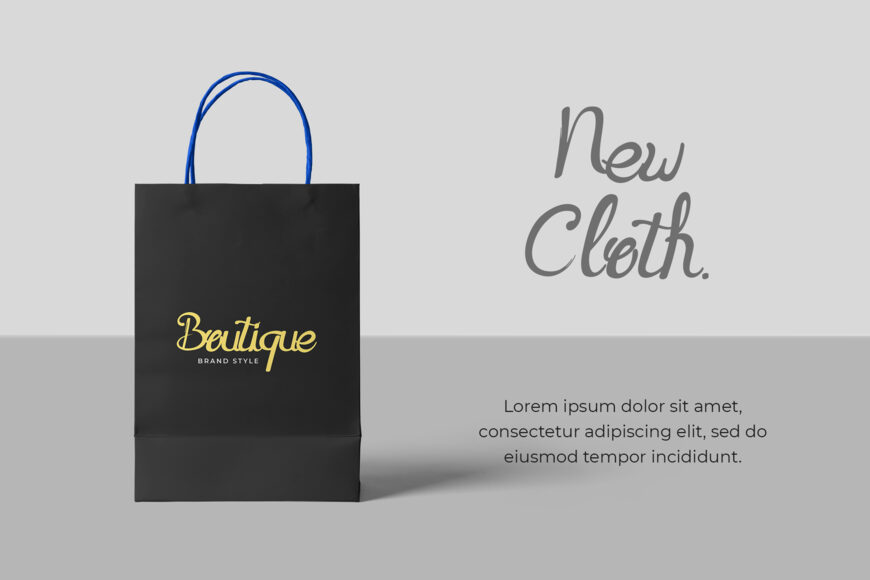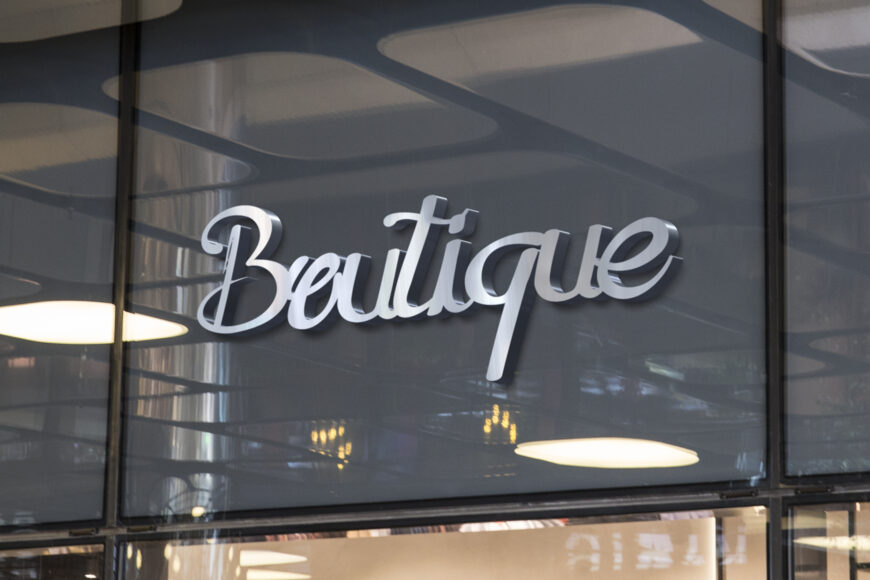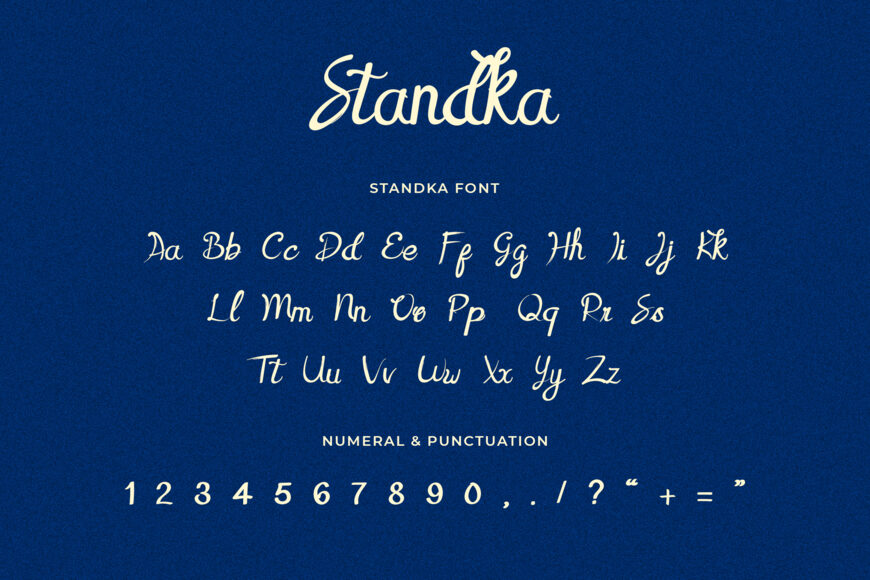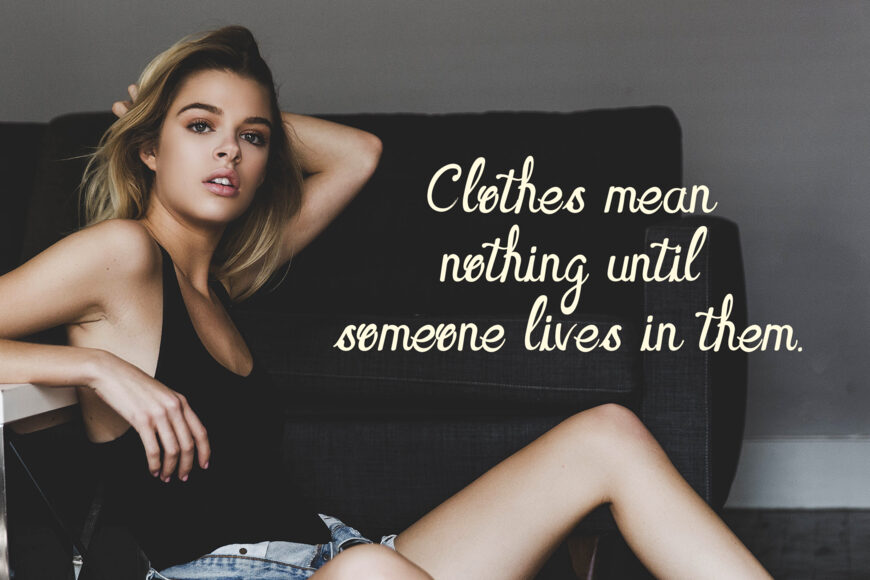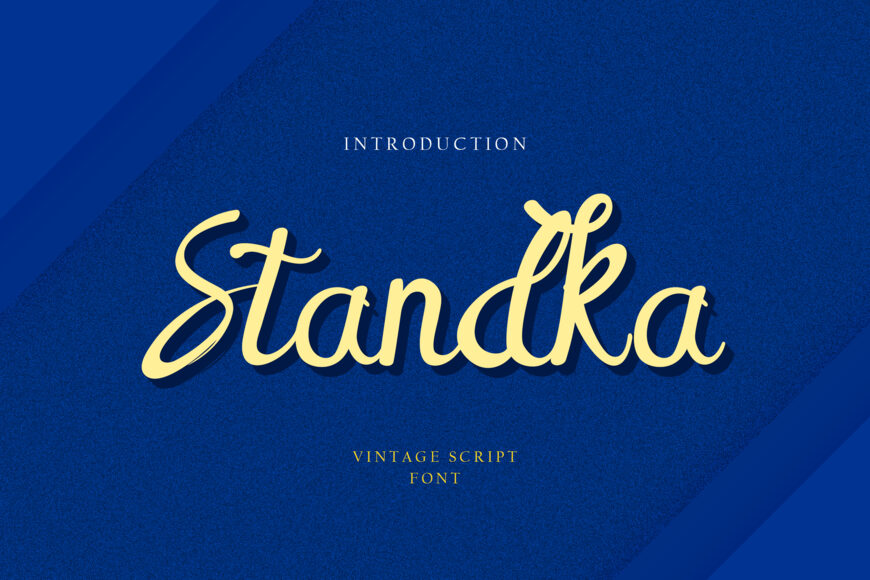
Standka Font
Standka is a sweet and cursive handwritten font. This gentle font will look gorgeous on a variety of design ideas. It will add a joyful and romantic touch to each of your projects!